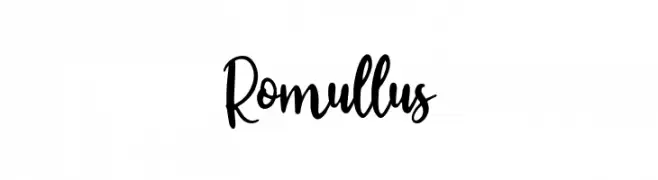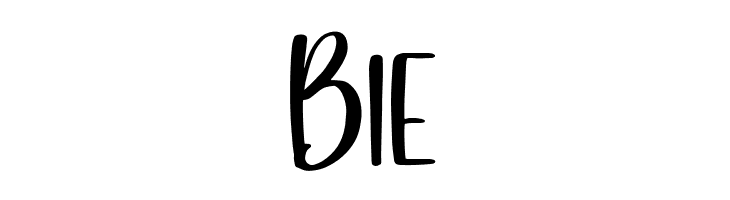
A dynamic script font with elegant, flowing letterforms and moderate contrast.
A bold, modern font with geometric, angular characters ideal for headlines.
A bold, geometric font with a modern twist and vintage influences.
An elegant and fluid script font with a handwritten feel.
A playful, handwritten font with bold, flowing strokes and a casual aesthetic.
A playful handwritten font with dynamic strokes and whimsical flair.
A dynamic and elegant script font with fluid, cursive letterforms.
An elegant serif font with elongated strokes and sharp serifs, blending classic and modern styles.
An elegant serif font with high contrast and sharp serifs, perfect for sophisticated designs.
An elegant italic font with smooth strokes and moderate contrast, exuding sophistication.